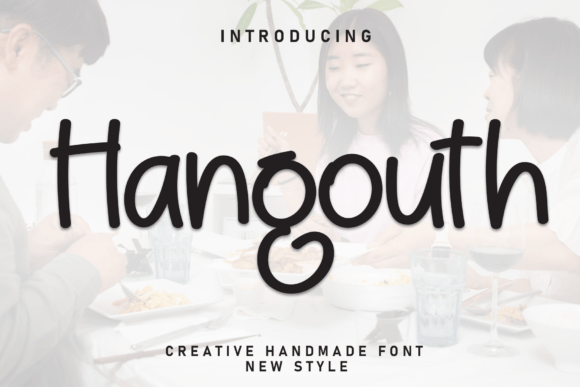
Introducing Hangouth Font: The Sweet and Friendly Handwritten Font for Your Design Needs
Are you looking for a font that can add a touch of warmth and personality to your designs? Look no further than Hangouth Font! This sweet and friendly handwritten font is perfect for creating wedding invitations, cards, and other designs that require a fun and playful touch.
What Makes Hangouth Font Special?
Hangouth Font is a unique and charming font that is sure to capture the attention of your audience. Its handwritten style gives it a personal and approachable feel, making it ideal for designs that require a touch of whimsy and charm. Whether you’re creating wedding invitations, greeting cards, or social media graphics, Hangouth Font is the perfect choice.
Key Features of Hangouth Font
• Cute and Fun: Hangouth Font is a playful and fun font that is sure to add a smile to your audience’s face.
• Sweet and Friendly: The font’s handwritten style gives it a warm and friendly feel, making it perfect for designs that require a personal touch.
• Handwritten Style: Hangouth Font is a true handwritten font, with each letter and word carefully crafted to give it a unique and personal feel.
• Versatile: Hangouth Font is versatile and can be used for a variety of design projects, from wedding invitations to social media graphics.
Hangouth Font is a great choice for designers and crafters who want to add a personal touch to their designs. Whether you’re creating digital products or handmade crafts, Hangouth Font is the perfect choice. Its unique and charming style is sure to make your designs stand out from the crowd.
Ideas for Using Hangouth Font
• Wedding Invitations: Use Hangouth Font to create beautiful and unique wedding invitations that will set the tone for your special day.
• Greeting Cards: Add a personal touch to your greeting cards with Hangouth Font. It’s perfect for birthdays, holidays, and other special occasions.
• Social Media Graphics: Use Hangouth Font to create fun and engaging social media graphics that will capture the attention of your audience.
• Party Decorations: Use Hangouth Font to create party decorations, such as banners and signs, that will add a touch of whimsy and charm to your party.
Why Choose Hangouth Font?
There are many fonts to choose from, but Hangouth Font stands out from the rest. Here are just a few reasons why:
• Unique Style: Hangouth Font has a unique and charming style that is sure to make your designs stand out.
• Easy to Read: Despite its playful style, Hangouth Font is easy to read and understand, making it perfect for designs that require a clear message.
• Versatile: Hangouth Font is versatile and can be used for a variety of design projects.
Hangouth Font is a sweet and friendly handwritten font that is perfect for designers and crafters who want to add a personal touch to their designs. Its unique and charming style makes it ideal for wedding invitations, greeting cards, social media graphics, and other designs that require a fun and playful touch. So why wait? Download Hangouth Font today and start creating beautiful and unique designs that will capture the attention of your audience!